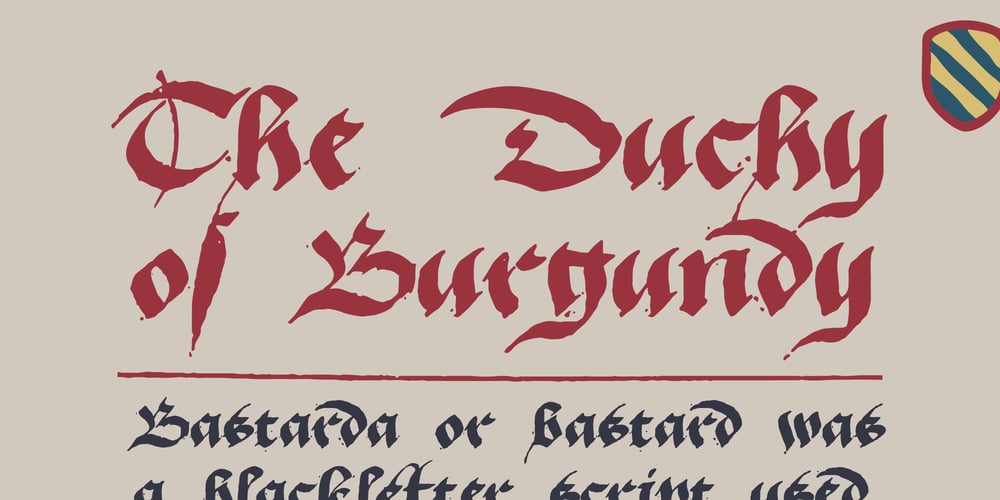
Duchy Of Burgundy Font Family was designed by Roman Korolev and published by Kaer. Duchy Of Burgundy contains 1 styles and family package options. My new font took the roots from The Book of Hours, was created in Burgundy at the beginning of the 16th century. Like other books of this type, the manuscript contains a church calendar, texts of readings from the four Gospels, and prayers.The manuscript is written in Latin, with a special form of Gothic script called bastarda. Bastarda or bastard was a blackletter script used in France, Netherlands, and Germany. The Burgundian variant of script can be seen as the court script of the Dukes of Burgundy. This fact was the instant point for my fonts name.You will get:* Uppercase & lowercase* Numbers and symbols* Multilingual support * Additional glyphs* Free future updatesThank you!